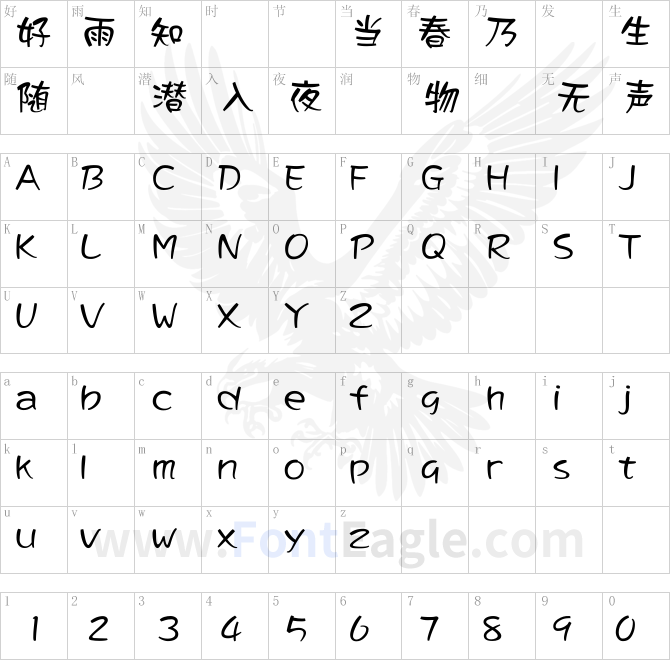
DFPRuLeiA-W5 is a great font, widely used in graphic design, single-page menu design, poster design and other fields, and is deeply loved by designers.DFPRuLeiA-W5 download.